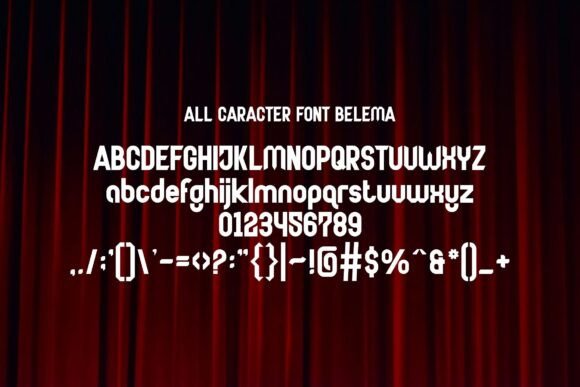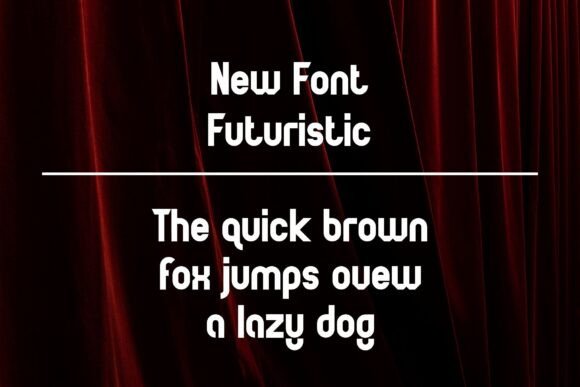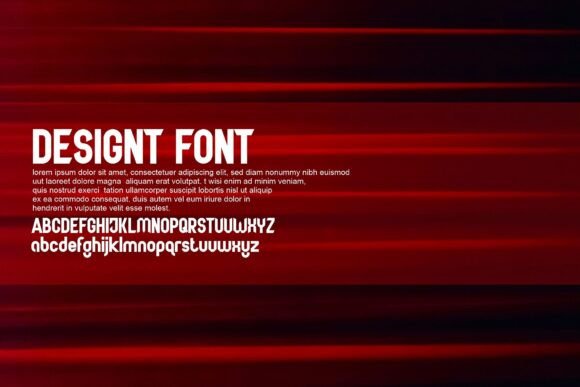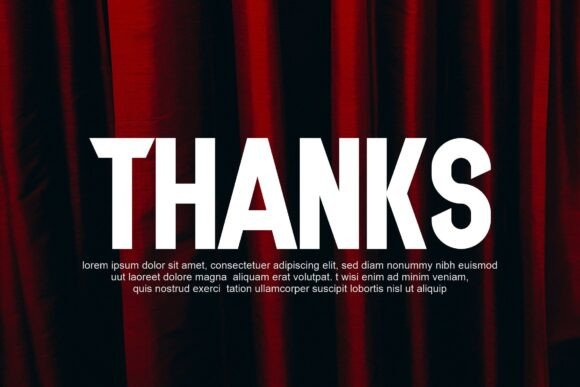
Discover the Unique Charm of Belema Font: Elevate Your Designs to New Heights
Are you tired of using the same old fonts in your designs? Look no further than Belema Font, an incredibly unique sans serif font that’s sure to become a true favorite in your collection. Masterfully designed to bring each of your creative ideas to the highest level, Belema Font is the perfect choice for designers and crafters looking to add a touch of sophistication and elegance to their work.
What Sets Belema Font Apart
Belema Font is not your average font. Its unique sans serif design makes it stand out from the crowd, giving your designs a fresh and modern look that’s sure to grab attention. The font’s clean lines, precise curves, and perfectly balanced proportions make it a joy to use, whether you’re working on a logo, brochure, or website.
One of the key features that sets Belema Font apart is its versatility. This font can be used in a wide range of design applications, from print materials like business cards and posters to digital media like social media graphics and website headers. Its scalability is also impressive, ensuring that it looks great at any size.
The Benefits of Using Belema Font
So why choose Belema Font for your next design project? Here are just a few benefits you can expect:
- Improved Readability: Belema Font is designed to be easy to read, making it perfect for body text, headings, and titles.
- Enhanced Visual Appeal: The font’s unique design and elegant lines add a touch of sophistication to any design.
- Increased Versatility: Belema Font can be used in a wide range of design applications, making it a great addition to your font library.
| Font Name | Belema Font |
| Author | riotama85 |